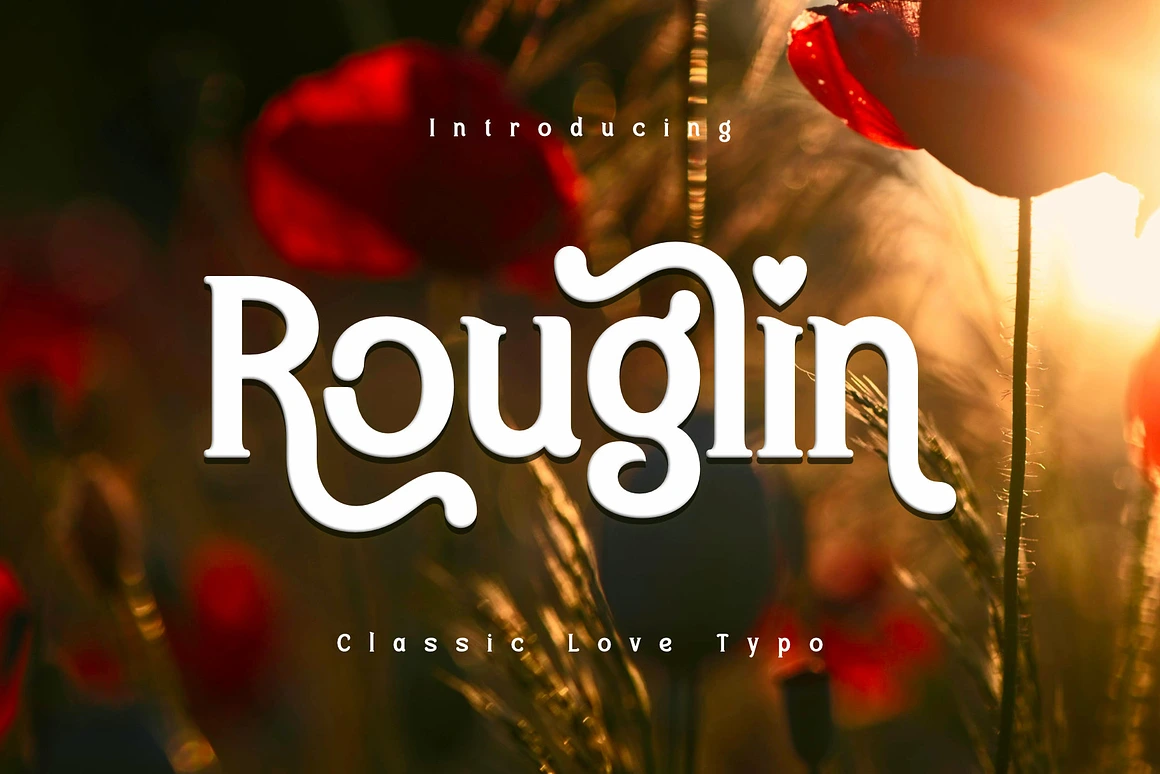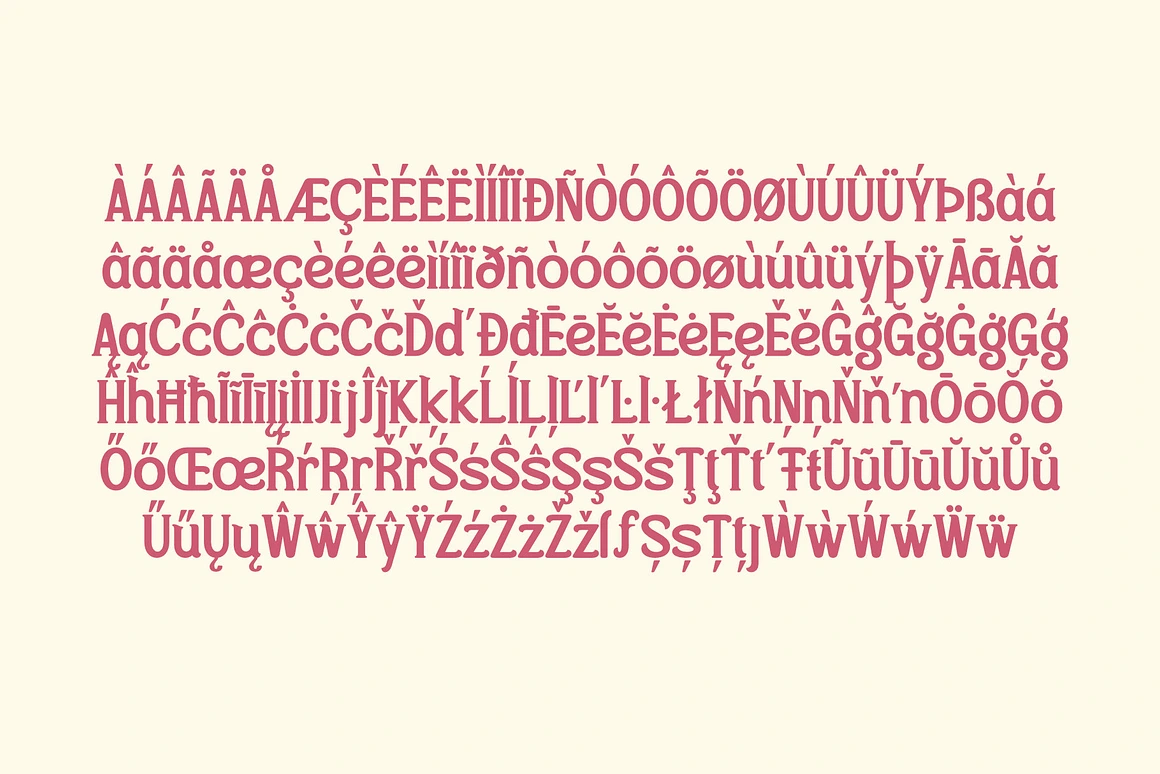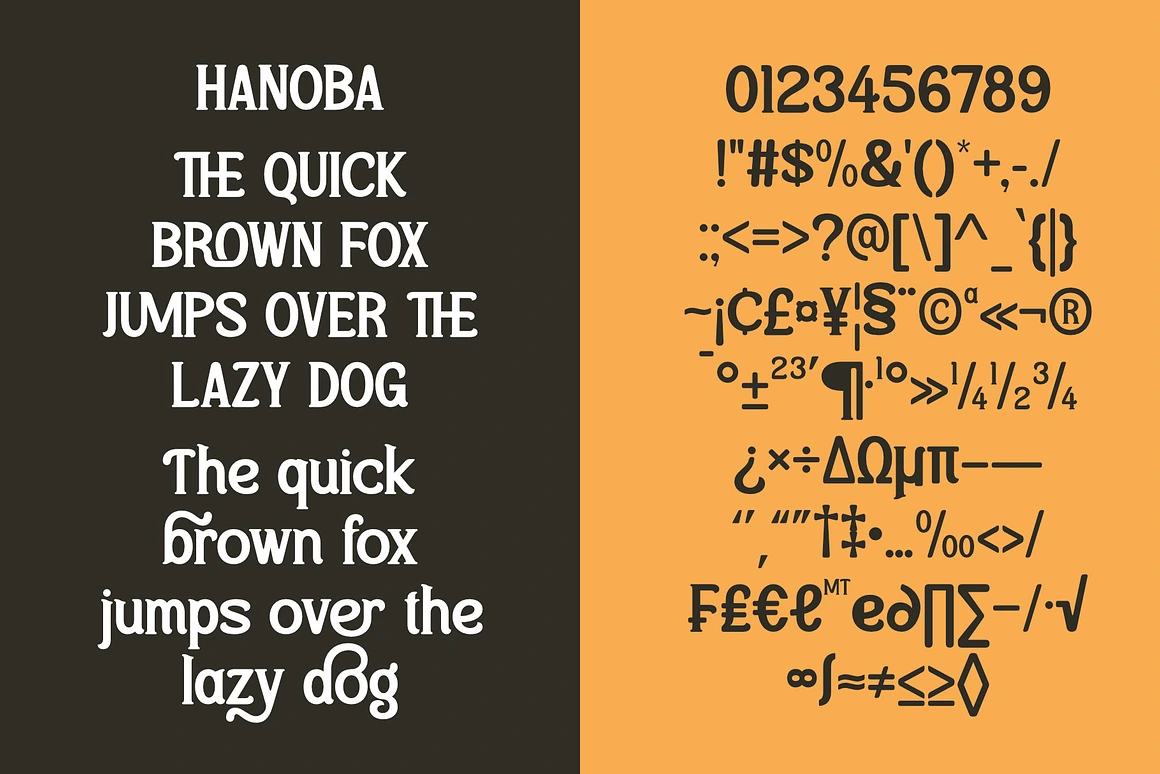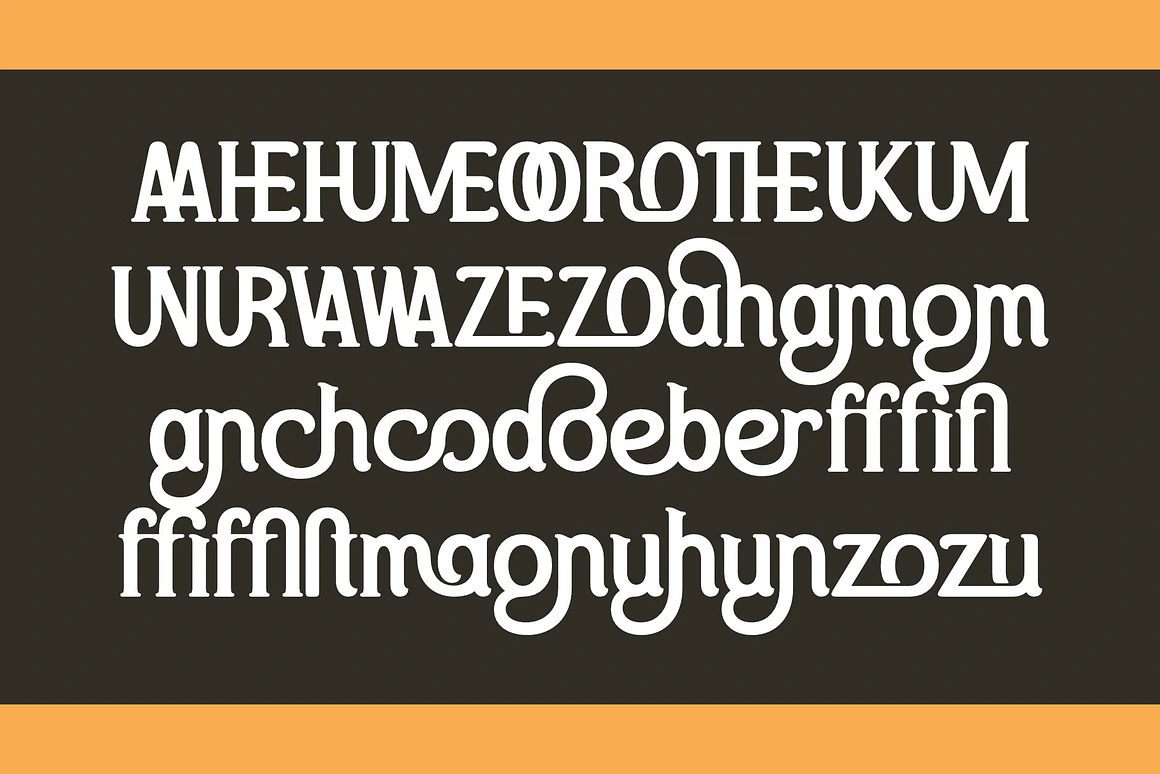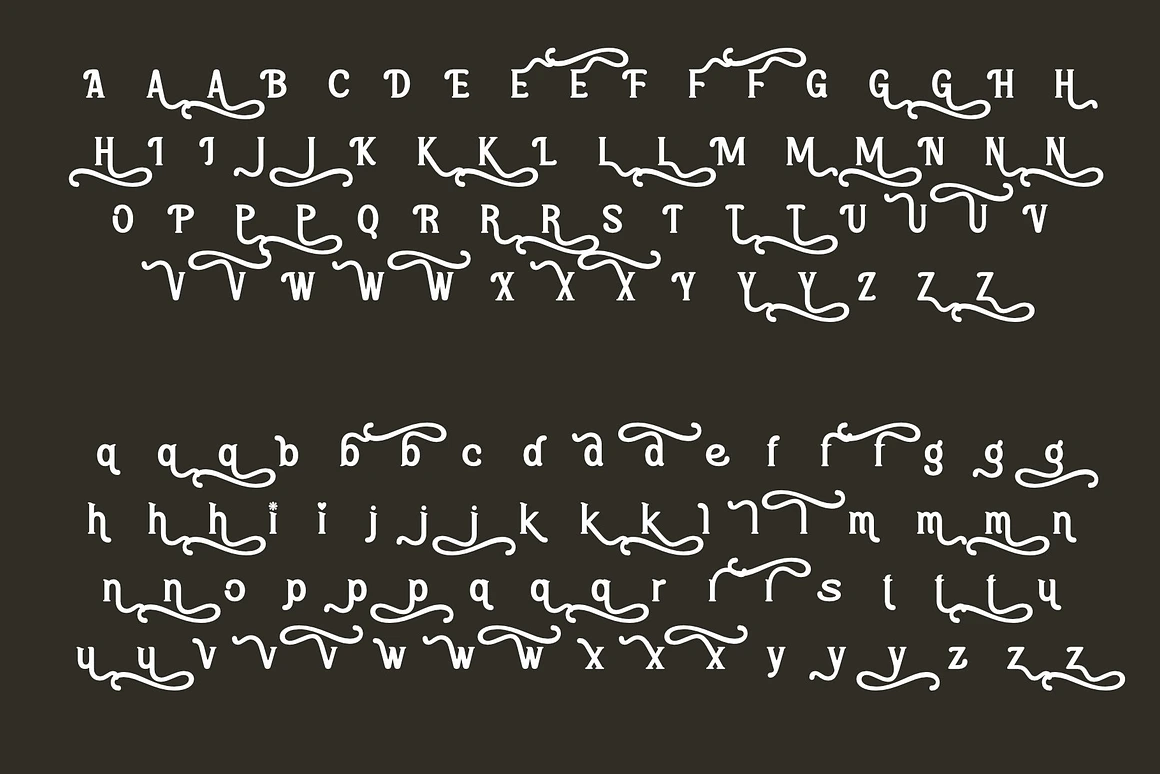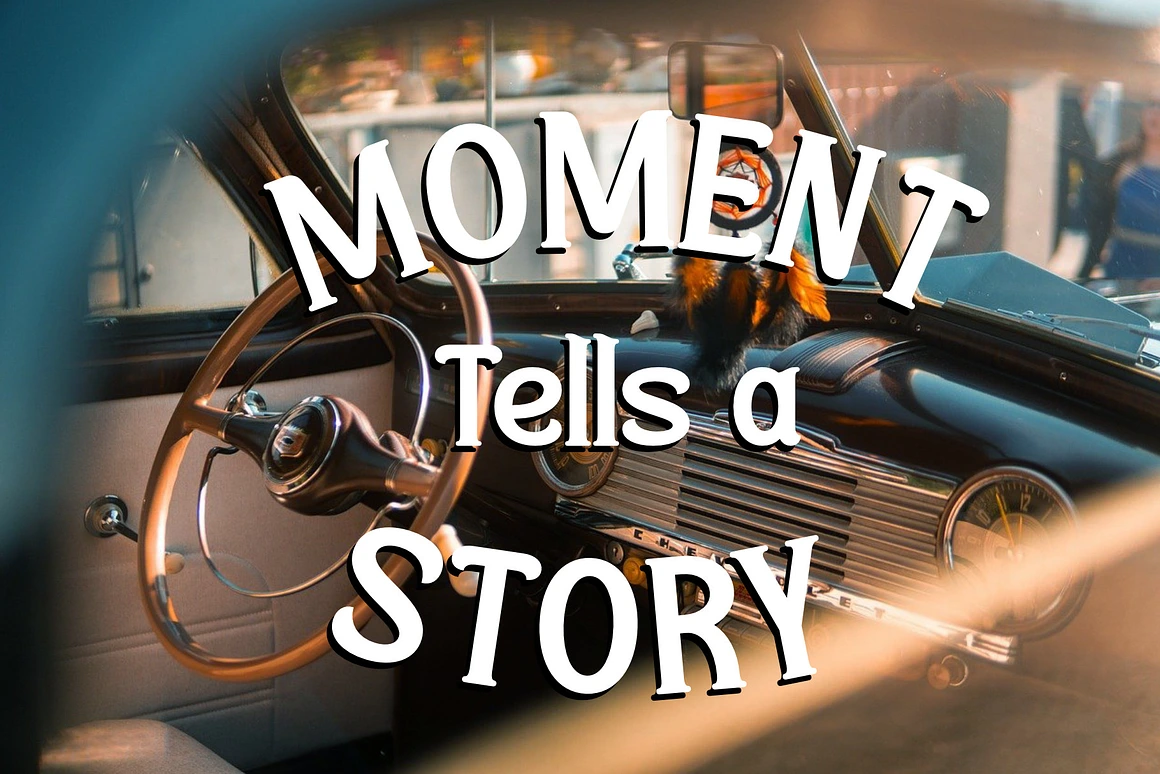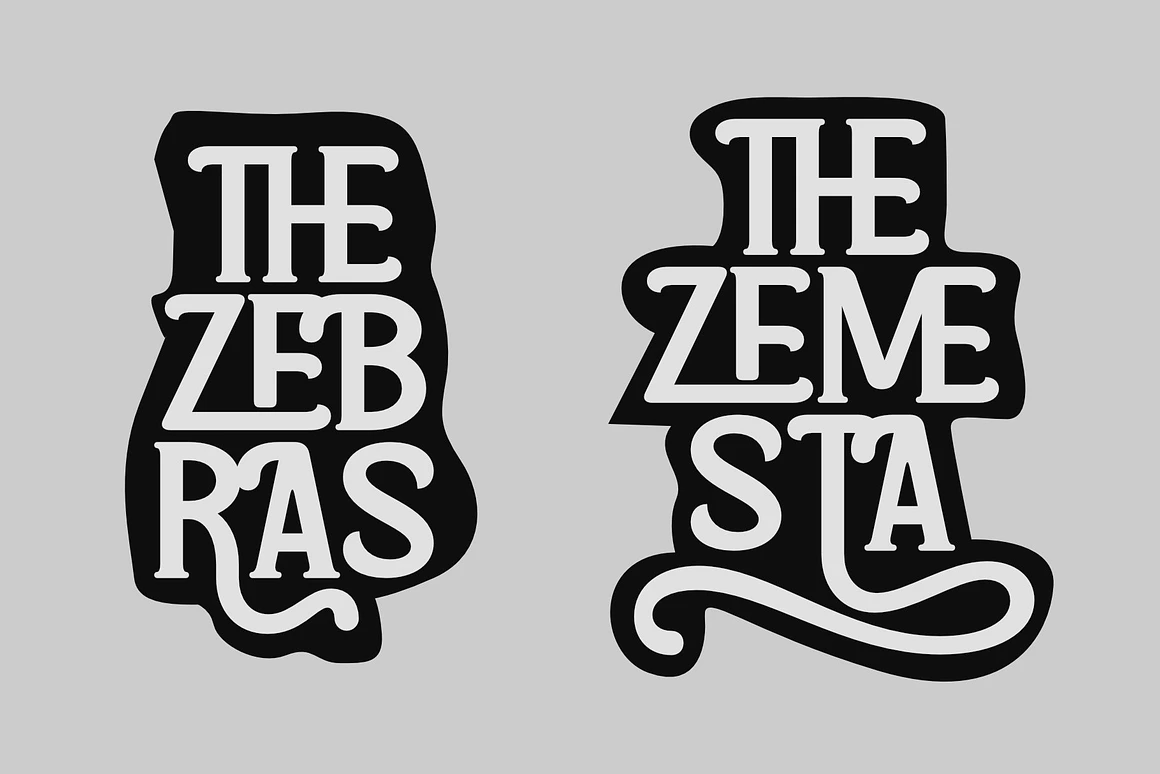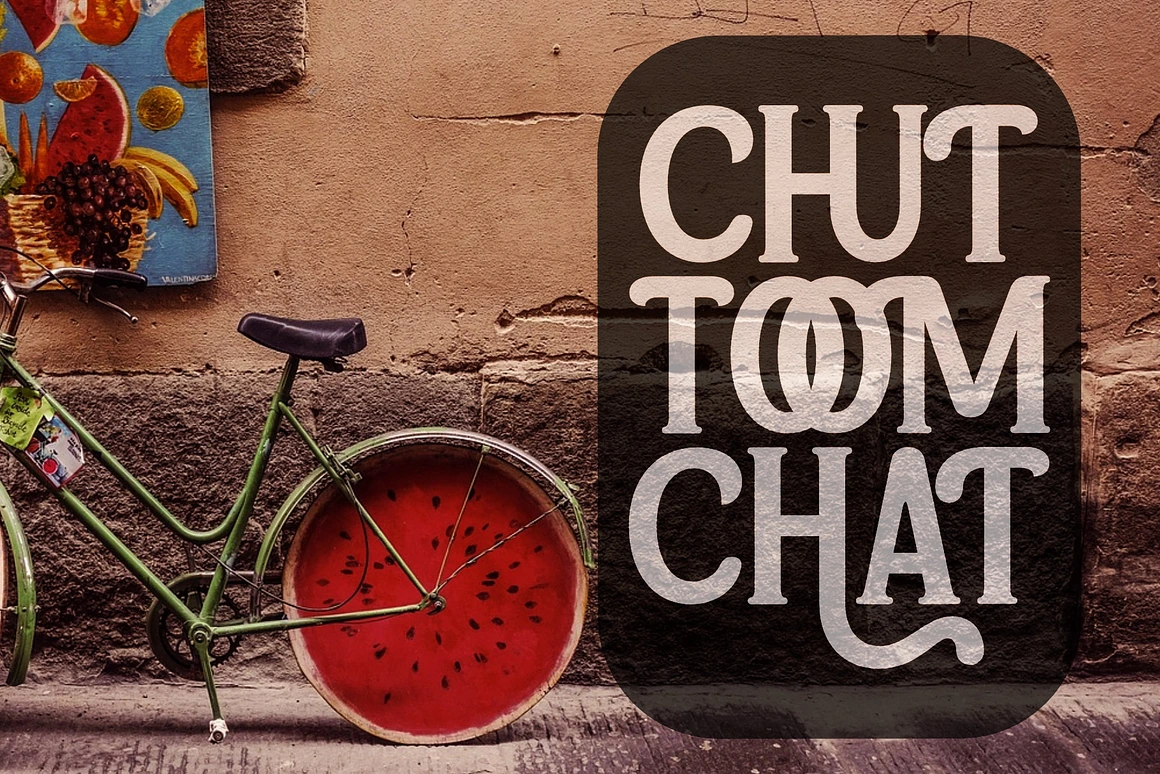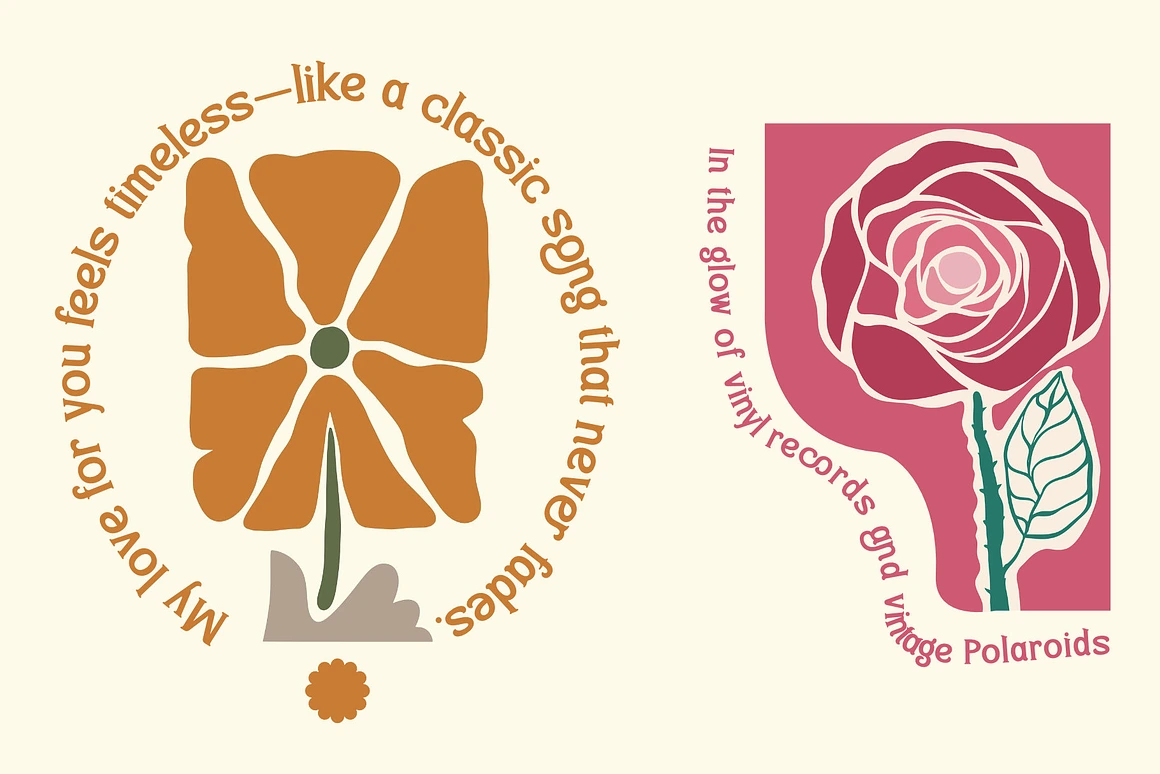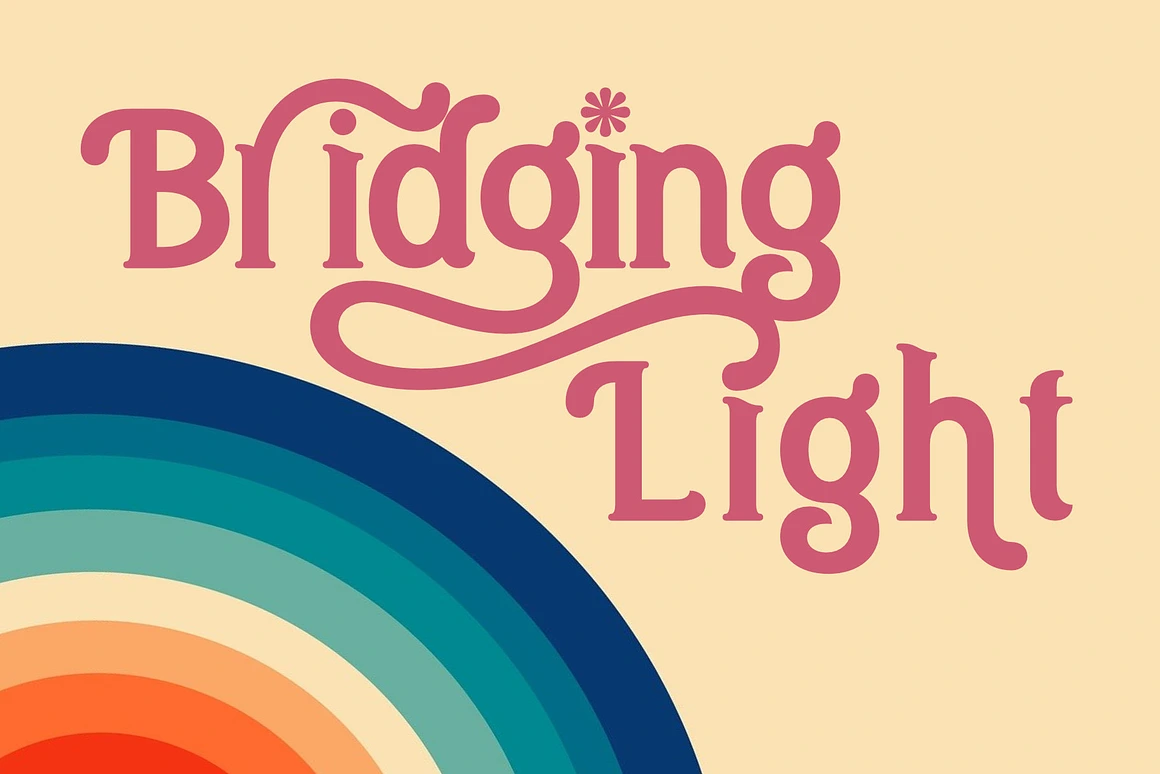
Rouglin Romantic and Classic Type
Rouglin
Introducing Rouglin, a romantic and classic typeface for love designed to bring a touch of sophistication and charm to your projects. With its flowing curves and delicate heart accents, Rouglin typeface font for love is perfect for wedding invitations, love letters, branding, and other heartfelt designs.
Features:
– Stylistic Sets: Create unique and customizable looks with a variety of alternate characters.
– Ligatures: Add a professional touch with beautifully crafted letter combinations. Swashes: Enhance your text with graceful and decorative flourishes.
– Multilingual Support: Includes an extensive set of characters to support multiple languages, making it versatile for global projects.
With advanced features, multilingual support, and versatile file formats, Rouglin is the perfect choice for elegant and timeless designs. Let your creativity shine with this sophisticated typeface!